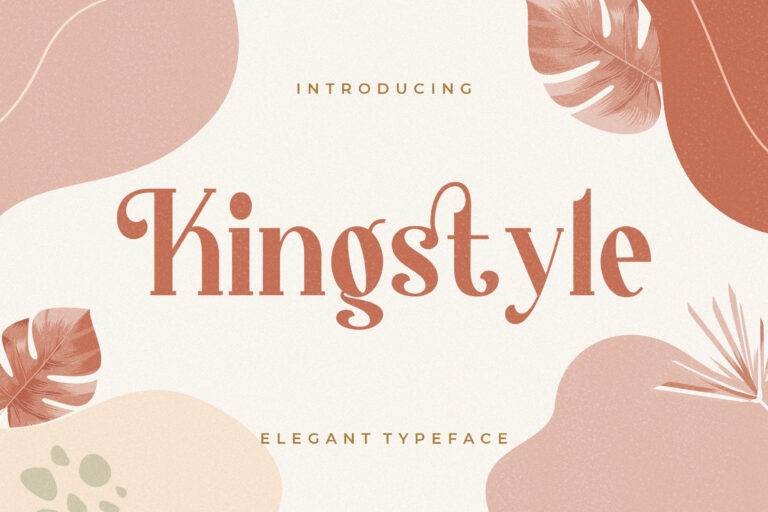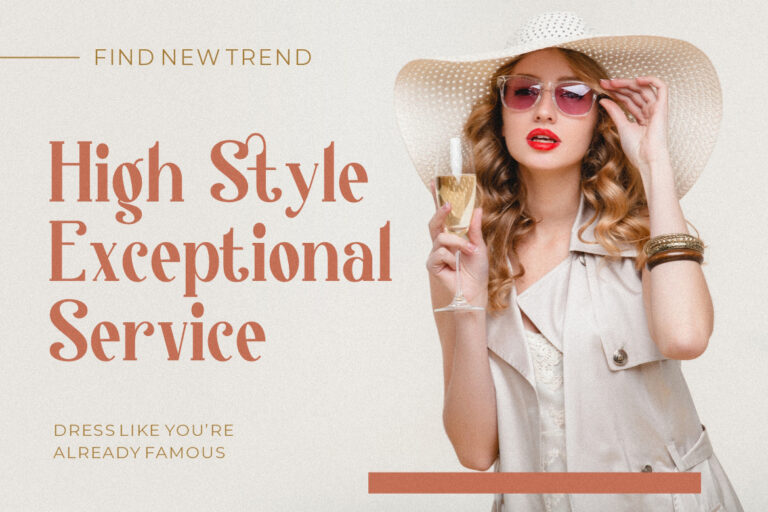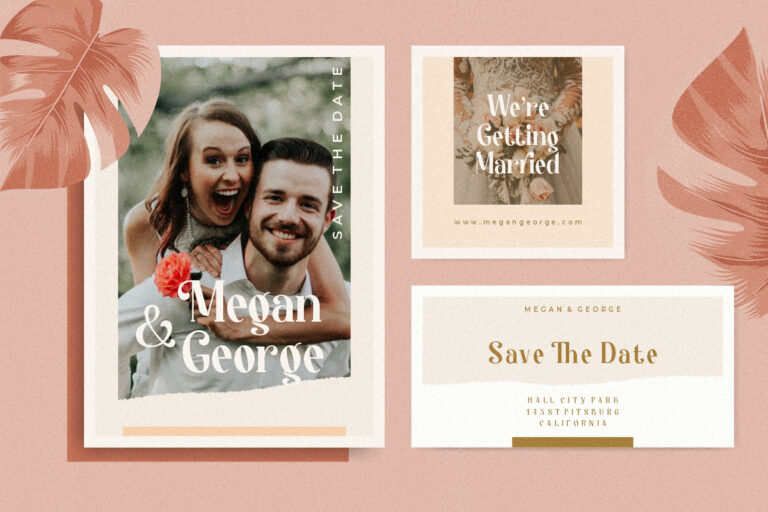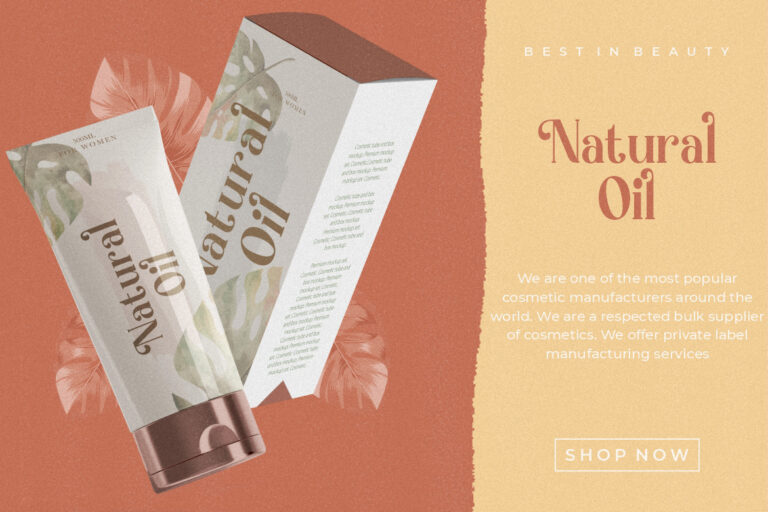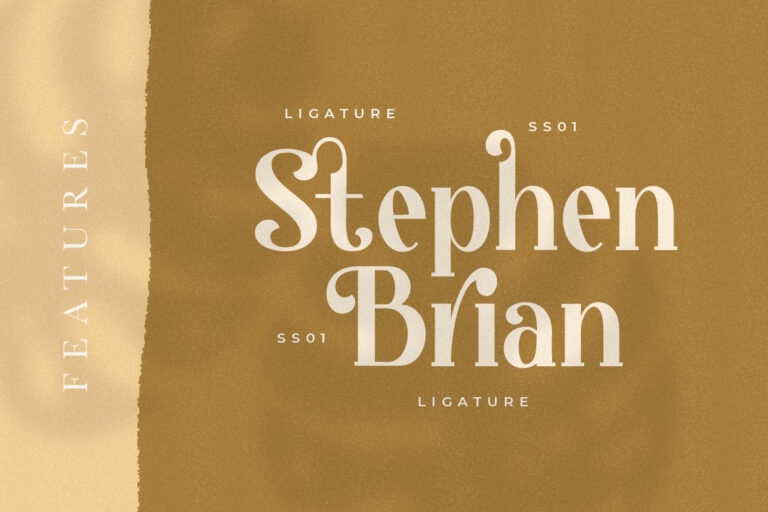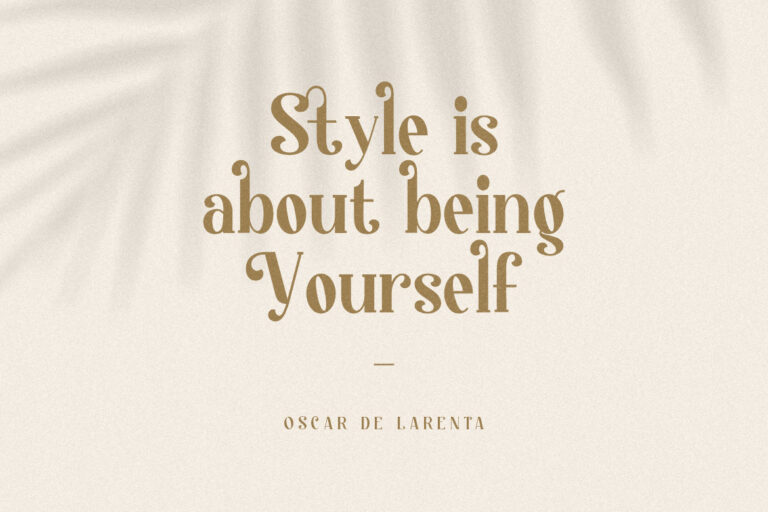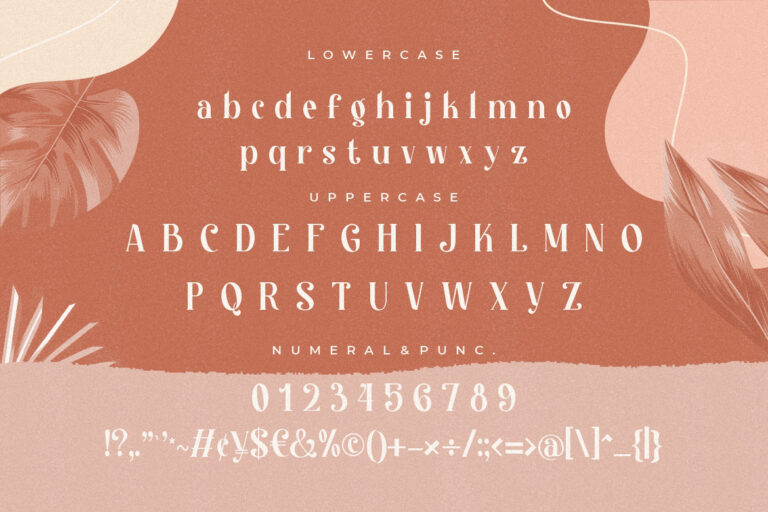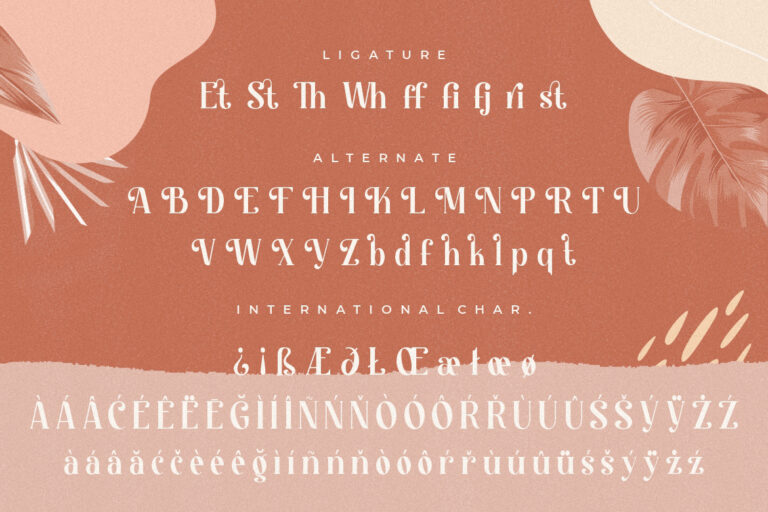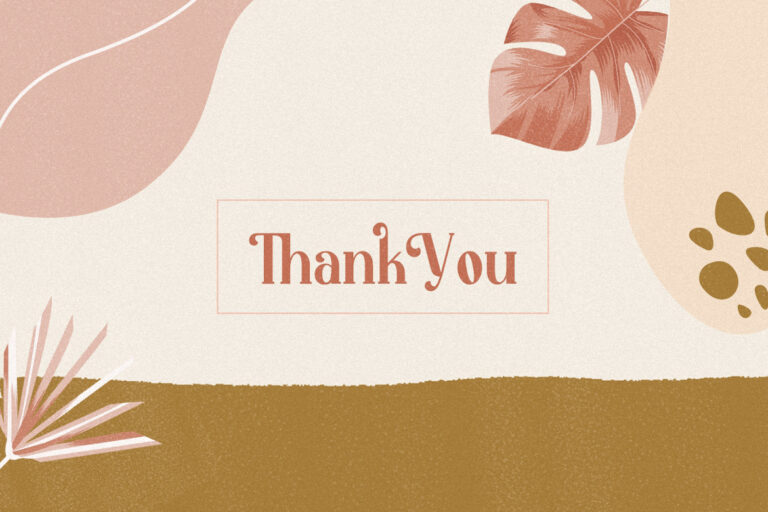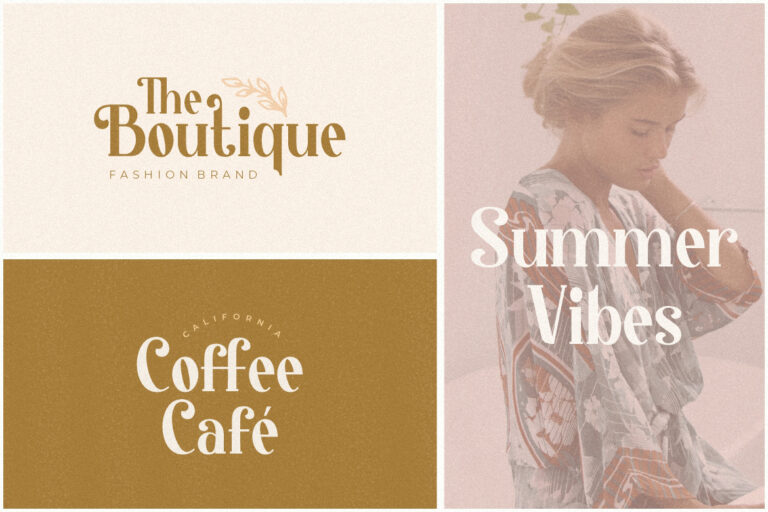
Kingstyle an elegant serif typeface looks clean and neat of a serif combined with the swirl swashes makes this font even more unique.
Kingstyle would perfect for photography, watermark, social media posts, advertisements, logos & branding, invitation, product designs, label, stationery, wedding designs, product packaging, special events or anything that need handwriting taste.
- Ligature, Alternate & Swashes
Kingstyle Elegant Serif